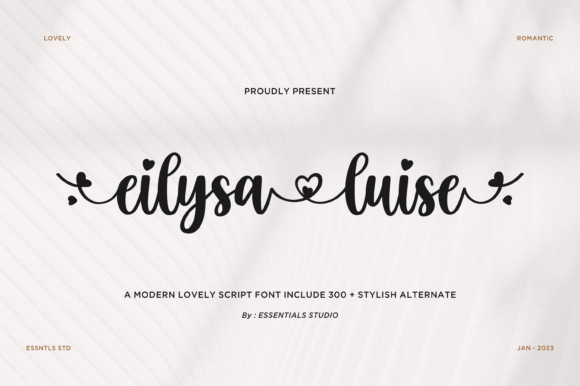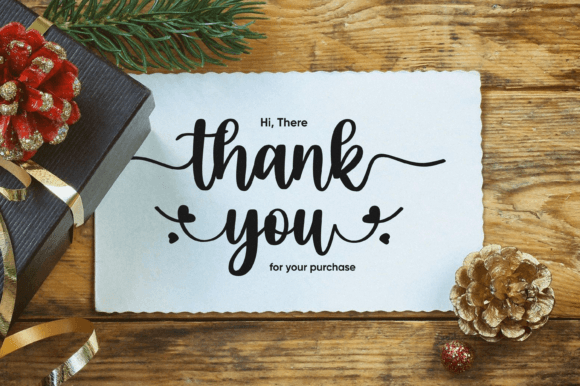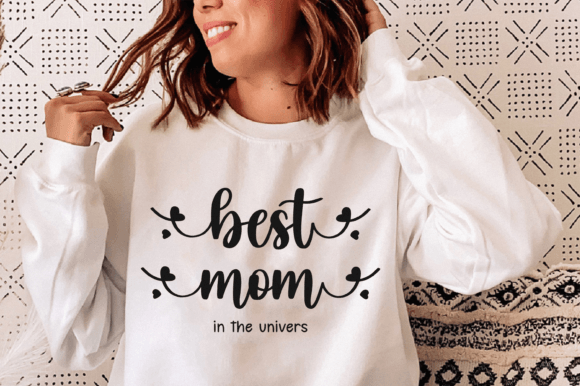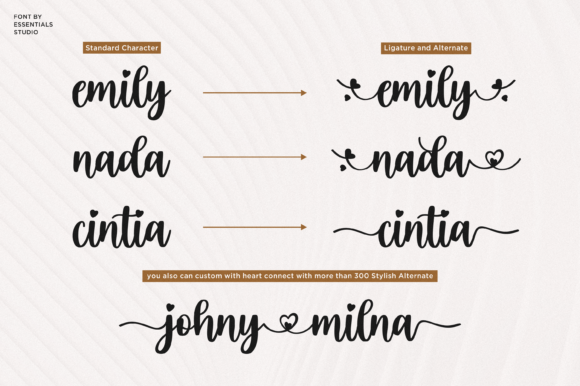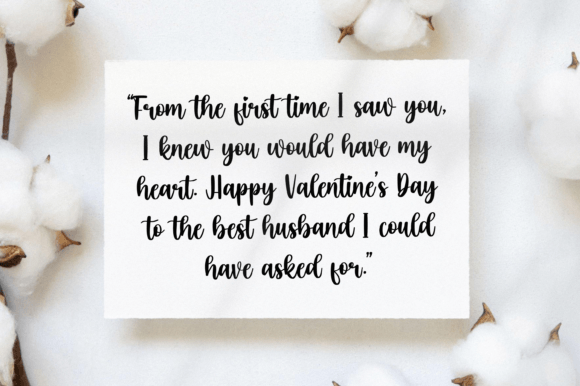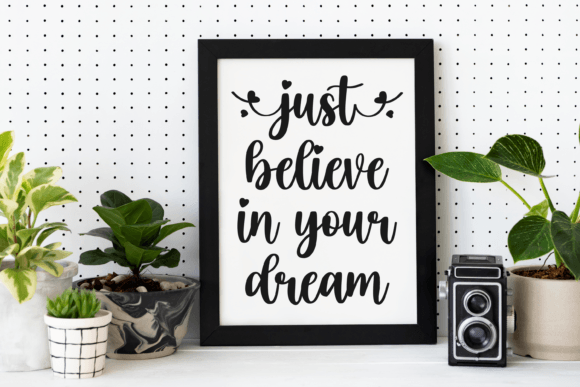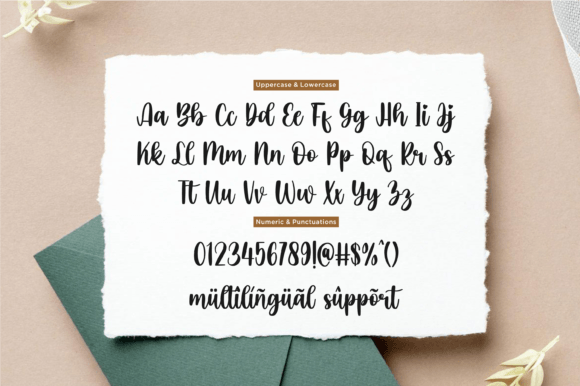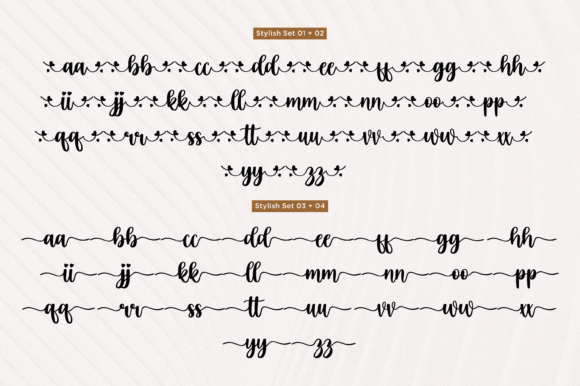
What Is Eilysa Luise Font?
Eilysa Luise Font is a modern and delightful script typeface created to bring sophistication and charm to any project. Its graceful strokes and smooth curves feel elegant and contemporary while staying warm and inviting. This blend of beauty and versatility makes Eilysa Luise Font an ideal choice for designers who want to create work that feels polished, stylish, and memorable.
The font seamlessly combines a chic aesthetic with a touch of romance, allowing it to work equally well in professional and personal projects.
Eilysa Luise Font is incredibly versatile and adapts beautifully to many creative applications. For example, it looks stunning on product packaging, adding a premium feel to labels, boxes, and tags. The flowing script helps your products stand out and creates an impression of quality and care.
It’s also perfect for branding materials such as logos, business cards, and letterheads. The modern script style makes your brand look refined and distinctive. Whether you run a boutique, a creative studio, or a luxury service, Eilysa Luise will help you build a visual identity that feels unique and trustworthy.
Wedding invitations, save-the-date cards, and event signage look beautiful when you use this font. The elegant curves add romance and sophistication, setting the tone for an unforgettable celebration.
Social media graphics and website banners also benefit from Eilysa Luise’s stylish personality. Whether you design inspirational quotes, promotional posts, or blog headers, this script helps your content look cohesive and professional.
Additionally, this font works wonderfully in magazines, editorial layouts, and headlines. The graceful strokes guide the eye naturally, adding beauty and flow to your designs.
Why Should You Choose Eilysa Luise Font?
One of the top reasons to use Eilysa Luise Font is its readability. Even with its decorative script style, each letter remains clear and easy to read at any size. Whether you’re designing a small label or a large headline, your text will stay sharp and polished.
Another advantage is how easily this font pairs with others. You can combine Eilysa Luise Font with clean serif or sans-serif typefaces to create balanced, elegant layouts. This pairing keeps your designs modern while adding personality.
Designers appreciate that Eilysa Luise saves time without compromising quality. Each glyph is crafted to look beautiful right out of the box, so you can produce stunning results more quickly.
Eilysa Luise Font brings elegance, authenticity, and sophistication to your work. The flowing script creates an emotional connection with your audience, making your designs feel more personal and thoughtful. This connection is especially important when you want to celebrate milestones or share meaningful messages.
Its refined lines and graceful movement add visual interest and luxury to any layout. Even the simplest designs feel elevated when you use Eilysa Luise Font.
Choosing a high-quality script typeface shows you care about detail and design excellence. Clients and customers will notice this effort, which helps build trust and strengthens your brand.
Eilysa Luise Font is more than just a beautiful script—it’s a versatile design tool that helps you share your ideas with style and grace. From logos and packaging to invitations and social media content, this font adapts to countless uses and always leaves a lasting impression.